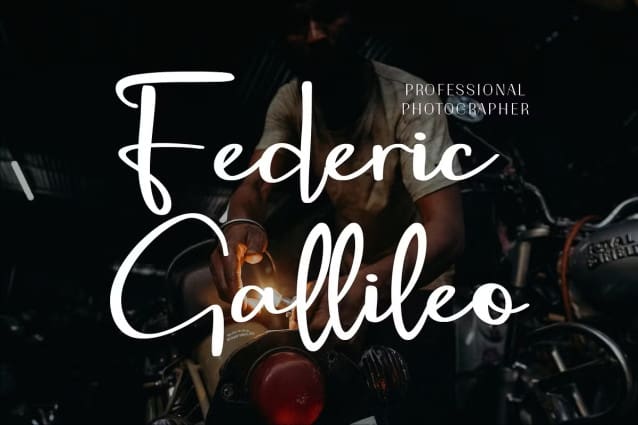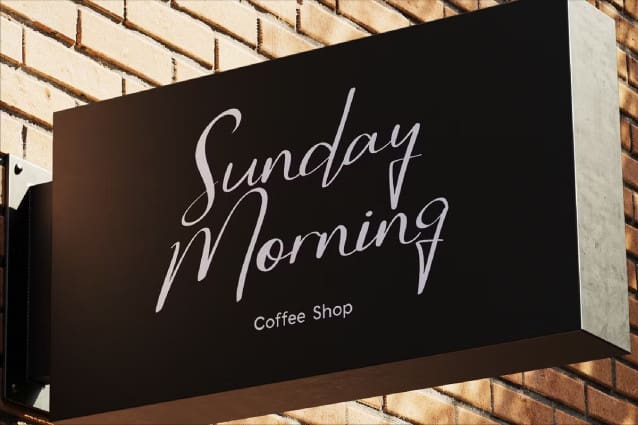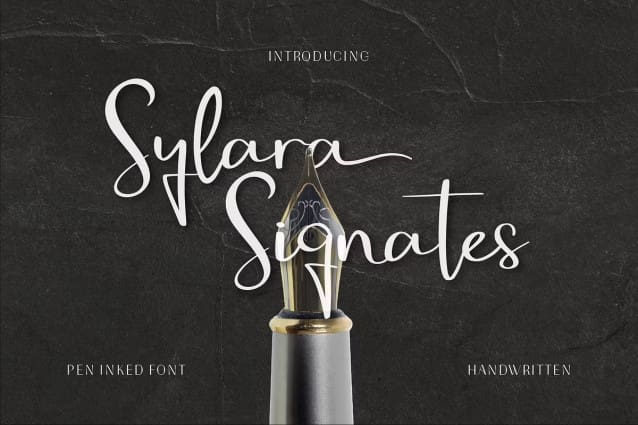
Sylara Signates Font
Sylara Signates Font is an exquisite pen-inked handwritten font, beautifully capturing the essence of authentic signatures. With its elegant curves, smooth flow, and natural handcrafted strokes, this font brings a sophisticated yet approachable look. Designed to emulate the luxury of ink on paper, it is perfect for branding, wedding invitations, logos, and personal designs. Whether you’re crafting a heartfelt message or creating professional designs, Sylara Signates delivers timeless charm and refined elegance, leaving a lasting impression.